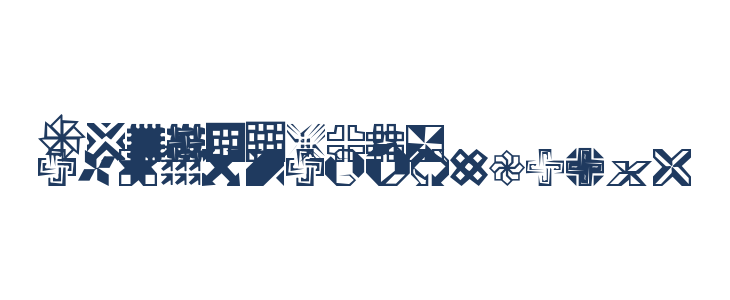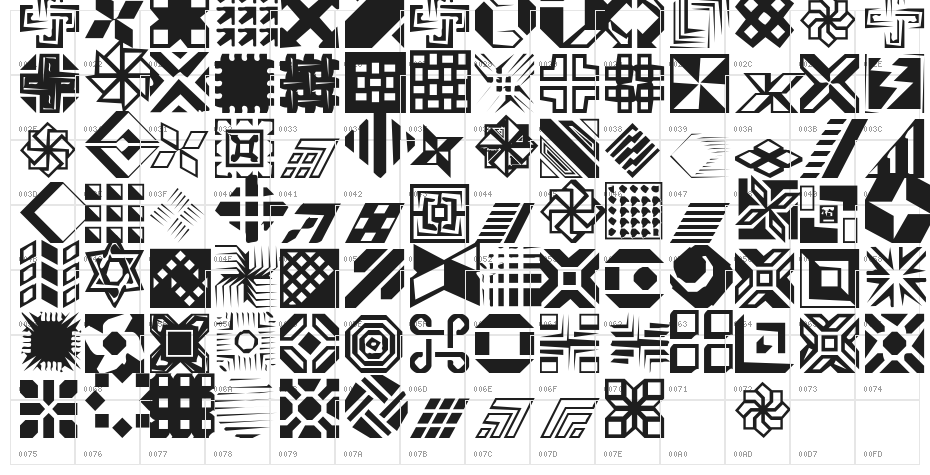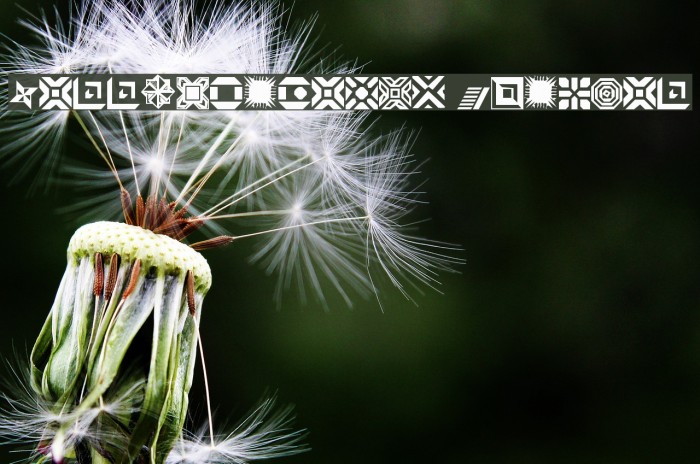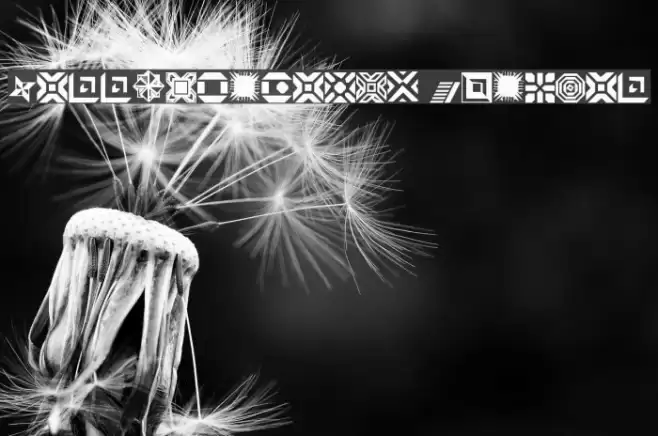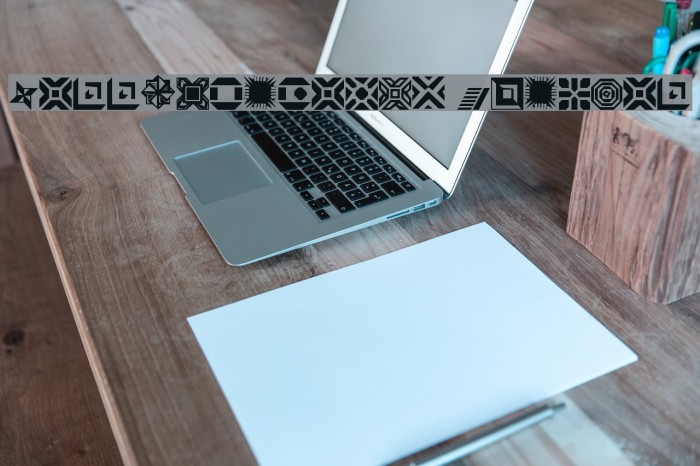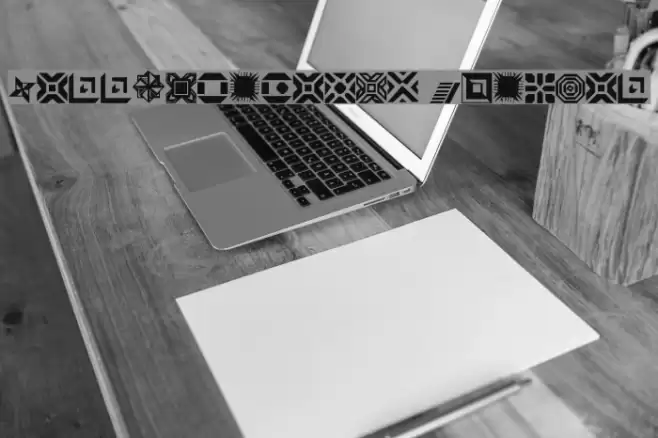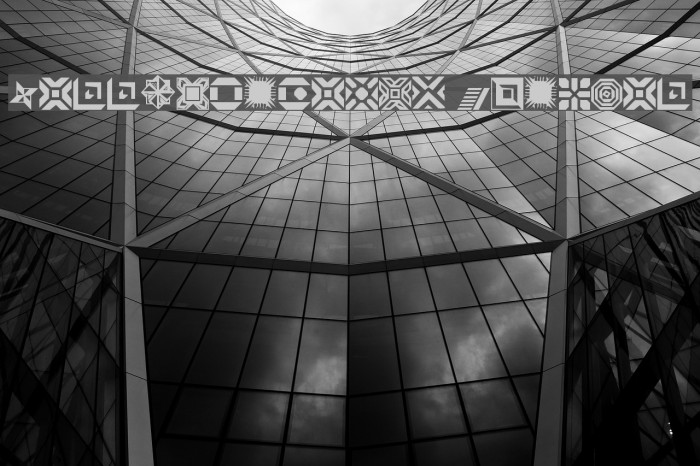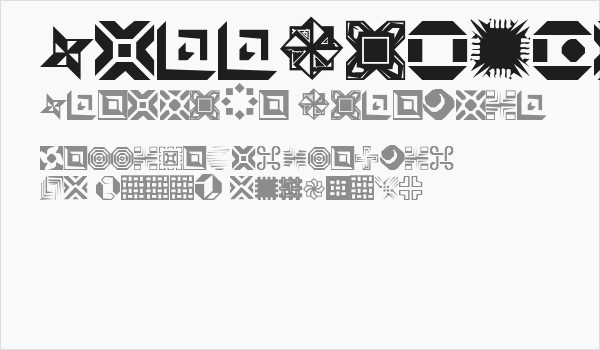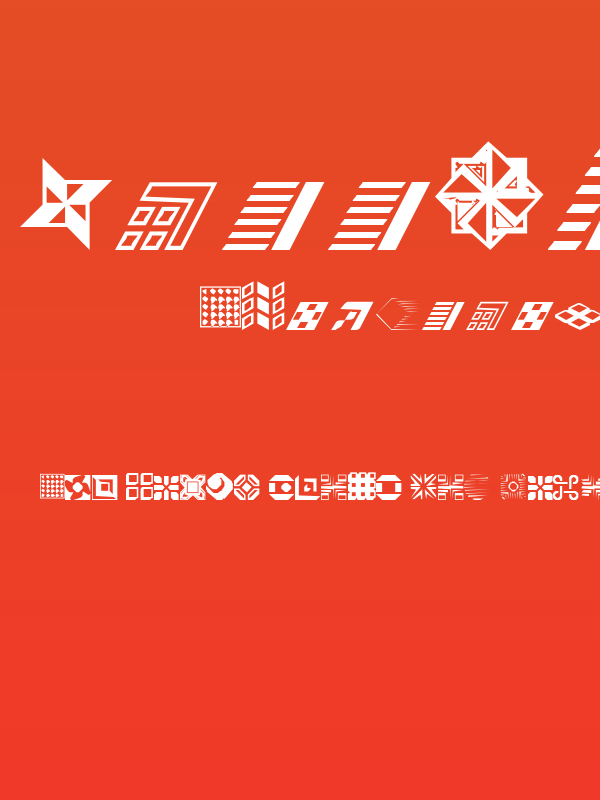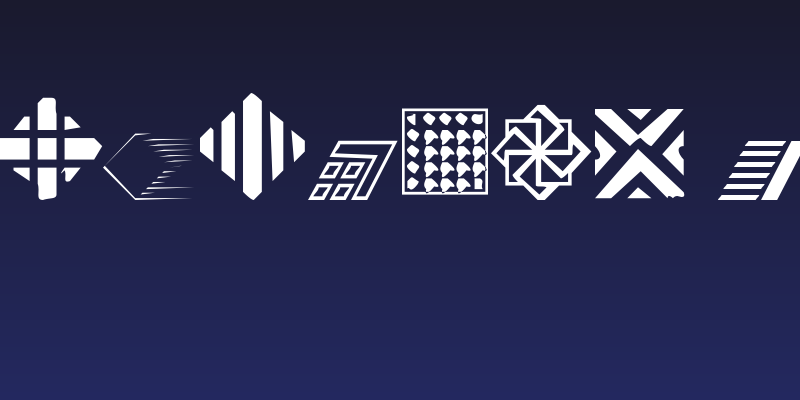
CarrDingbats1 Regular Font
CarrDingbats1 Regular Description
This collection features a diverse array of geometric symbols and shapes, each meticulously crafted to offer a unique visual experience. The designs range from intricate star patterns to bold, angular forms, showcasing a blend of symmetry and asymmetry. These symbols are characterized by their high contrast, with thick, bold lines that create a striking visual impact. The assortment includes both simple and complex designs, making it versatile for various creative applications. The consistent use of black and white enhances the clarity and definition of each symbol, ensuring they stand out in any context.
| Use Case | Logos, Decorative elements, Icons |
| Proposed Projects | Ideal for use in branding, logo design, decorative elements in graphic design projects, and as icons in digital interfaces. |